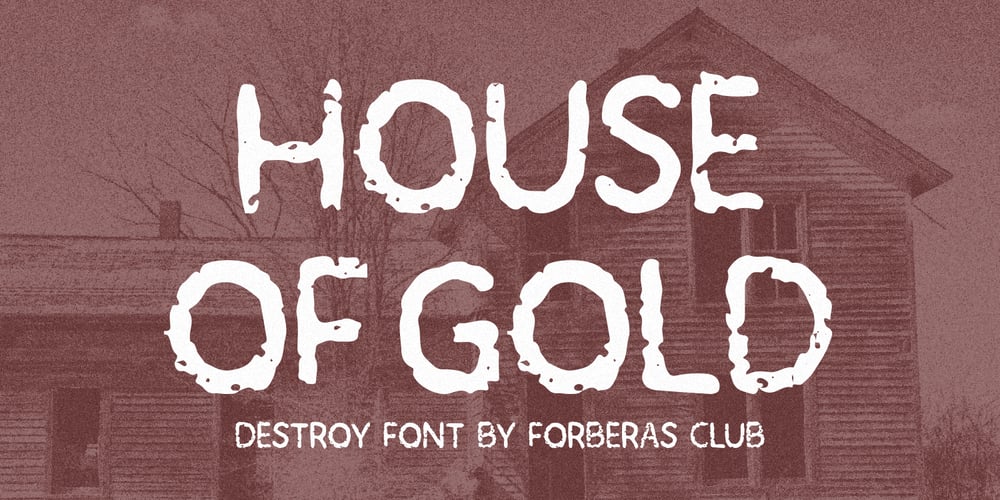
House of Gold
House of Gold font
House of Gold Font Family was designed by ANGGI HERMAWAN and published by Forberas Club. House of Gold contains 1 styles and family package options. House of Gold is a Handwritten Script font that will make your designs look classic, Farmhouse, Boho, and Feminine. It is a great font for events, Wedding Project, signature, album covers, logos, branding, magazines, social media posts, advertisements, but it also works great for other projects. Add it to your fonts’ library, and it will enhance your creativity!